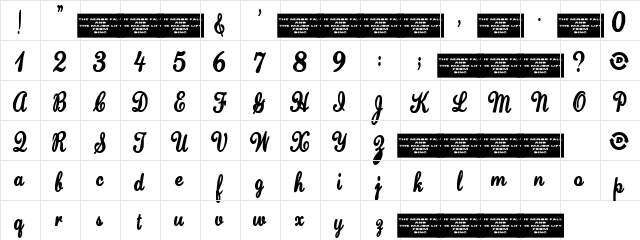
Major Lift Regular
Design Context for Major Lift Typeface
Major Lift is a composed and adaptable typeface that performs quietly and consistently across a wide range of design contexts.